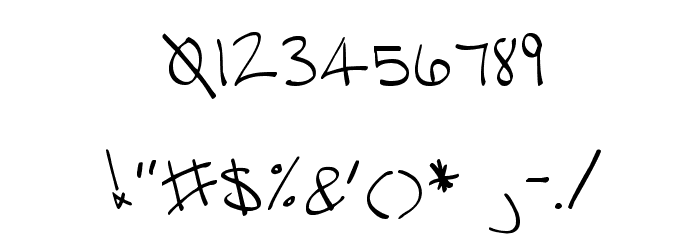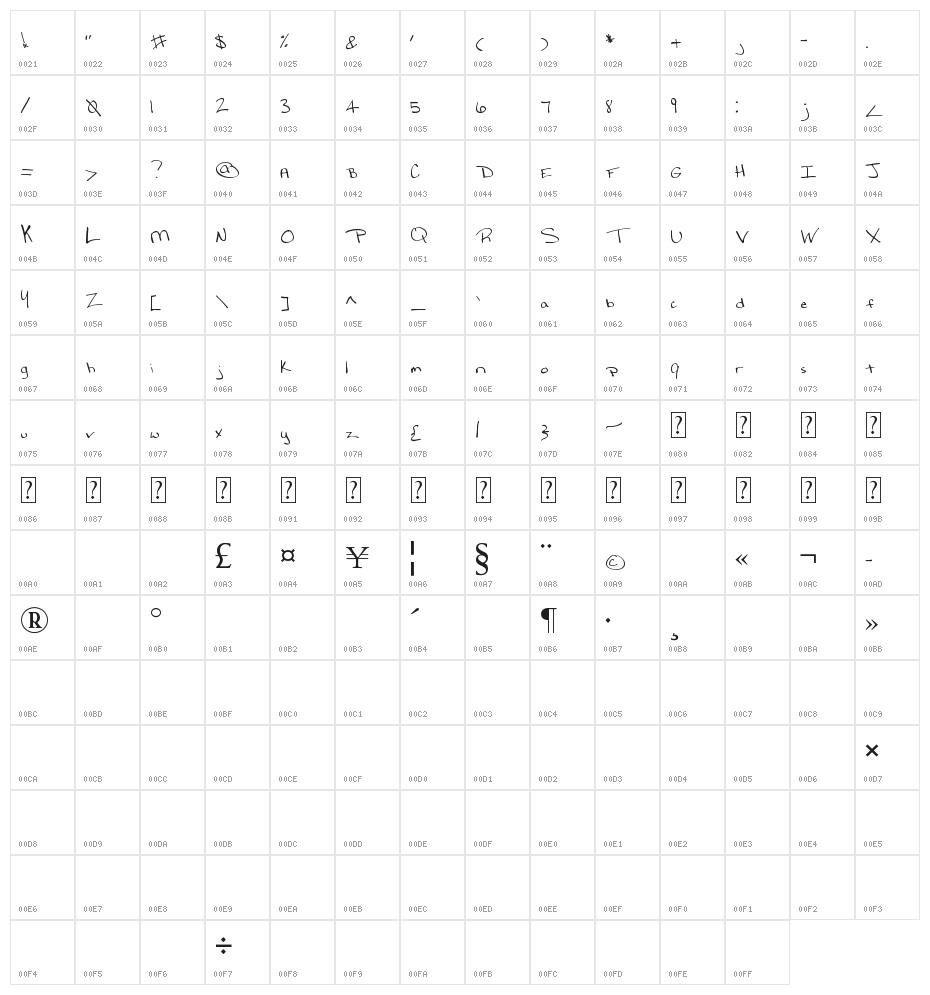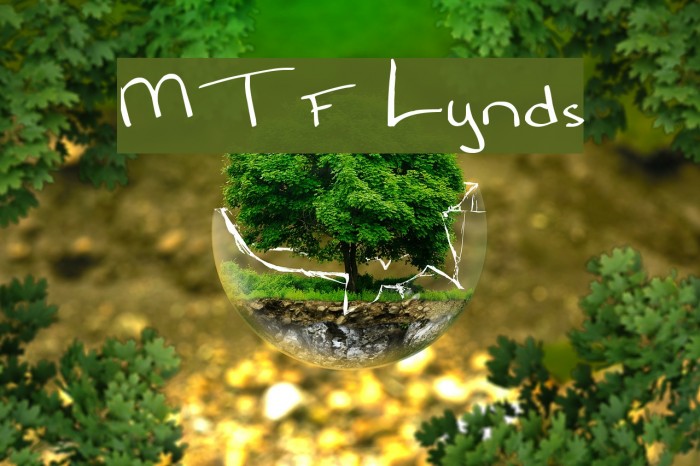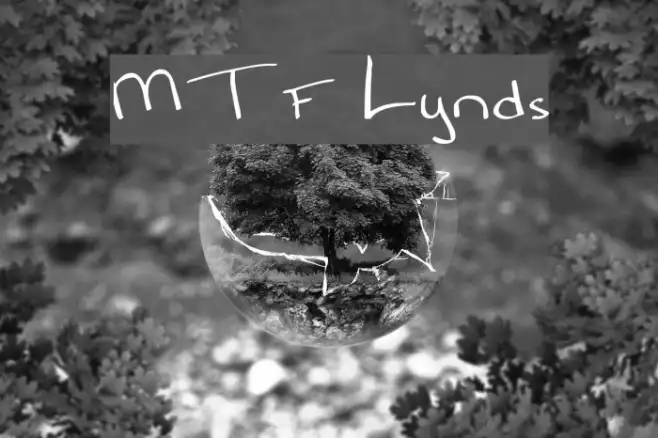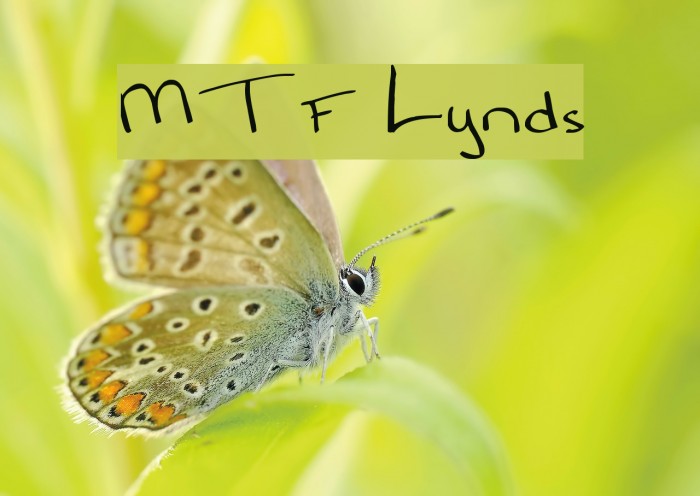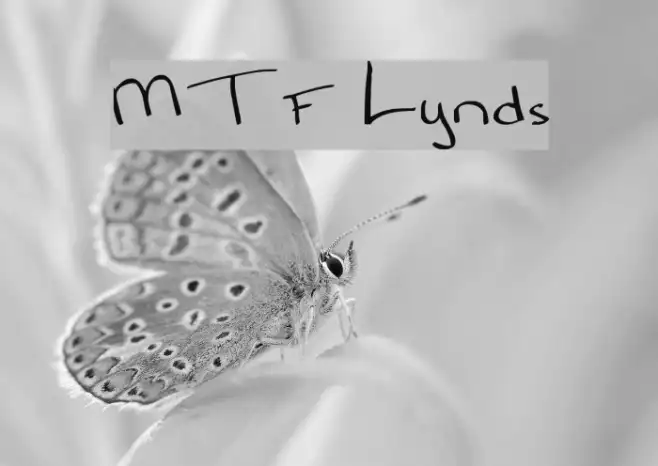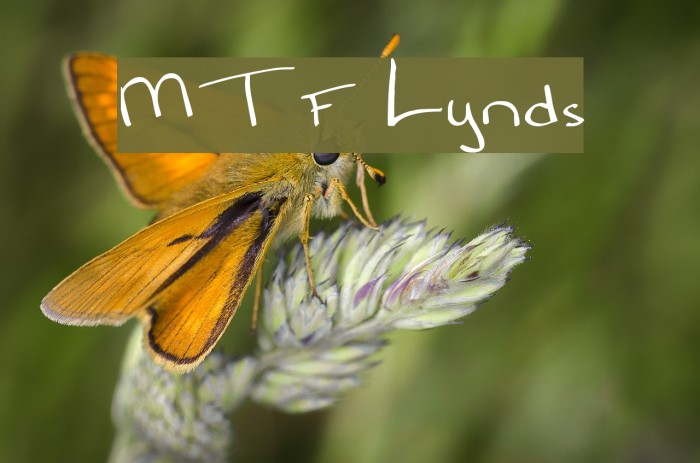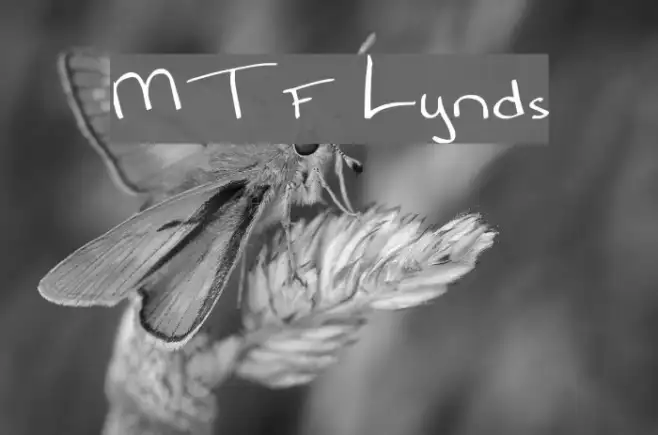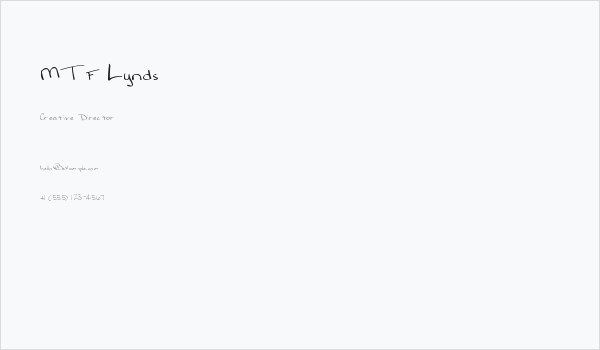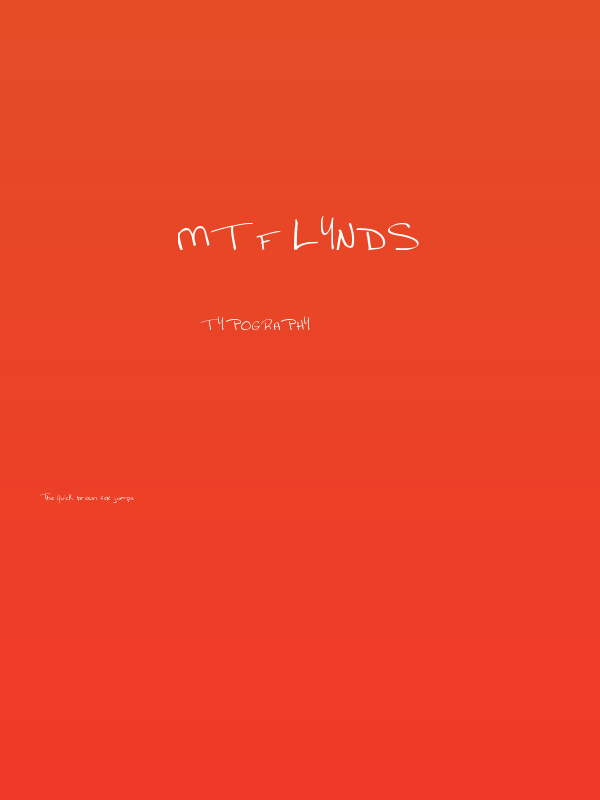
MTF Lynds Font
MTF Lynds Description
This font exhibits a casual, handwritten style with a playful and informal appearance. The characters are slightly irregular, mimicking the natural flow of handwriting. The strokes are uneven, adding to the organic feel, and the letters have a slight slant, enhancing the handwritten effect. The uppercase letters are bold and prominent, while the lowercase letters maintain a consistent style with a slightly smaller size. The numbers and special characters follow the same playful and informal design, making the font versatile for various creative projects. The overall look is approachable and friendly, suitable for designs that require a personal touch.
Overall StyleCasual, Playful
Use CaseHeadlines, Informal text, Creative projects
Proposed ProjectsIdeal for greeting cards, personal invitations, children's books, and playful branding materials.